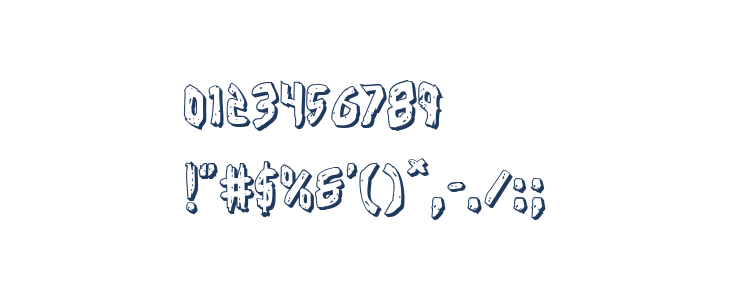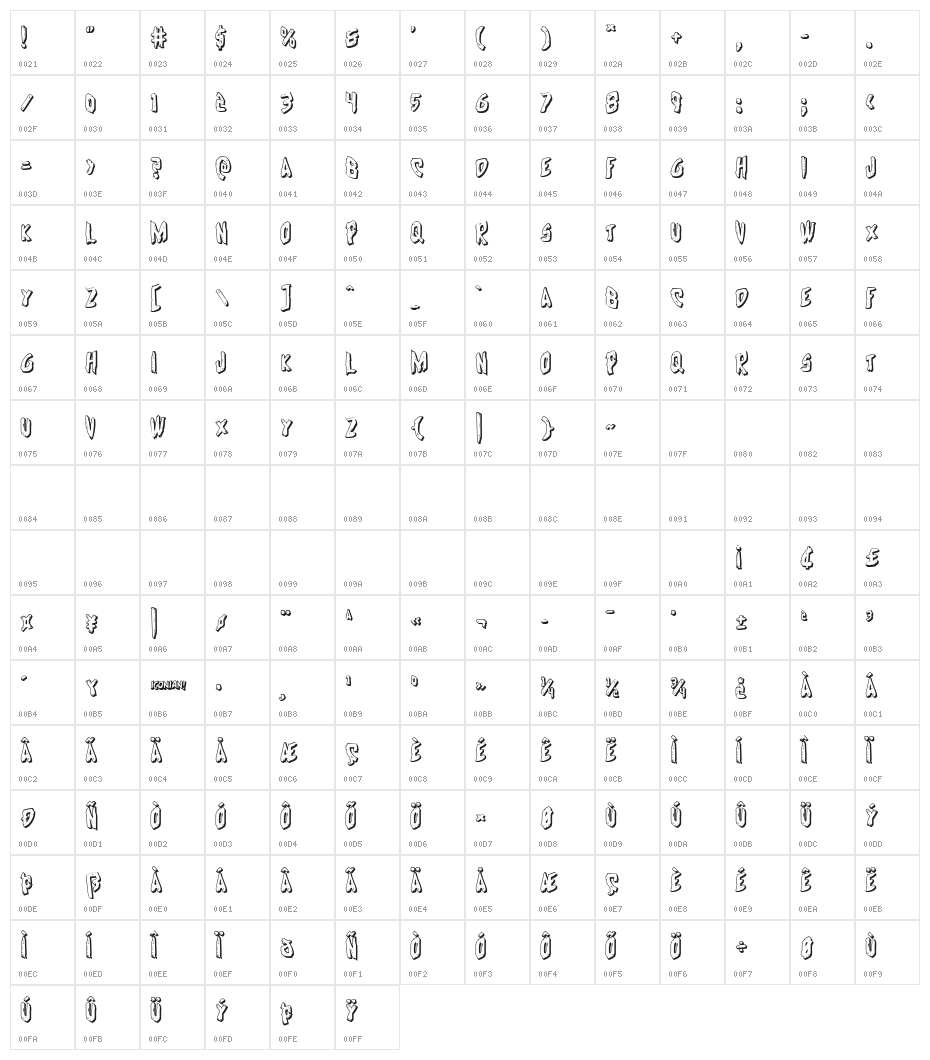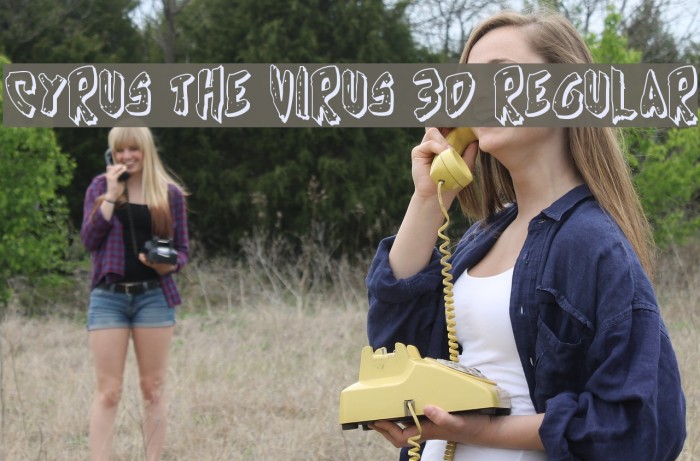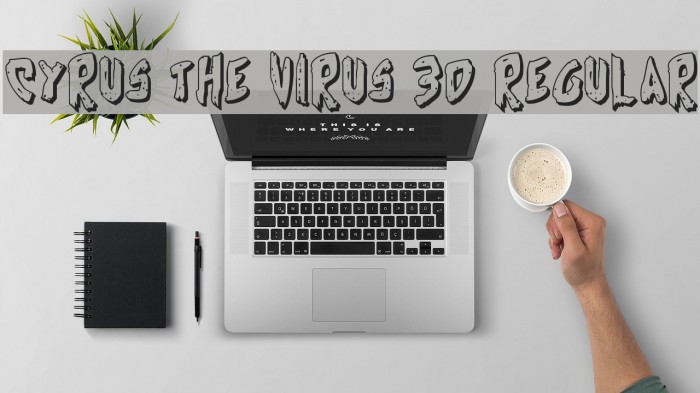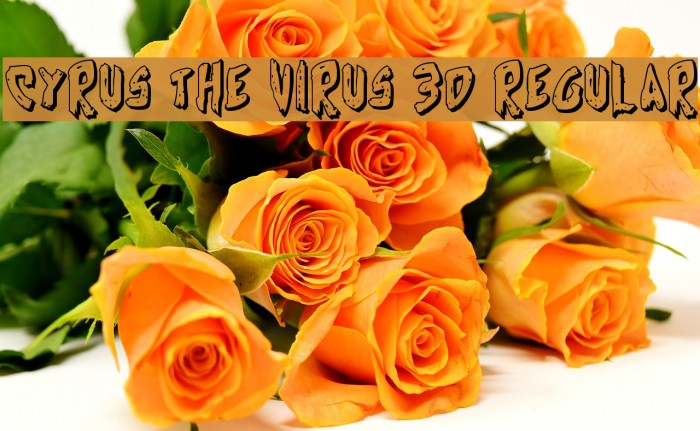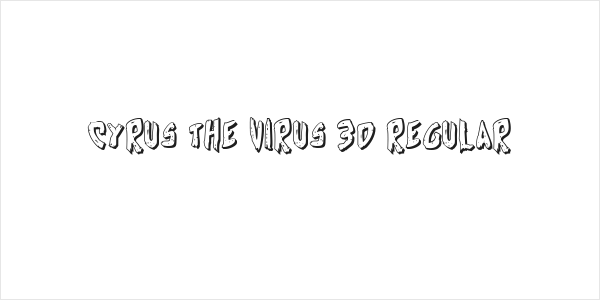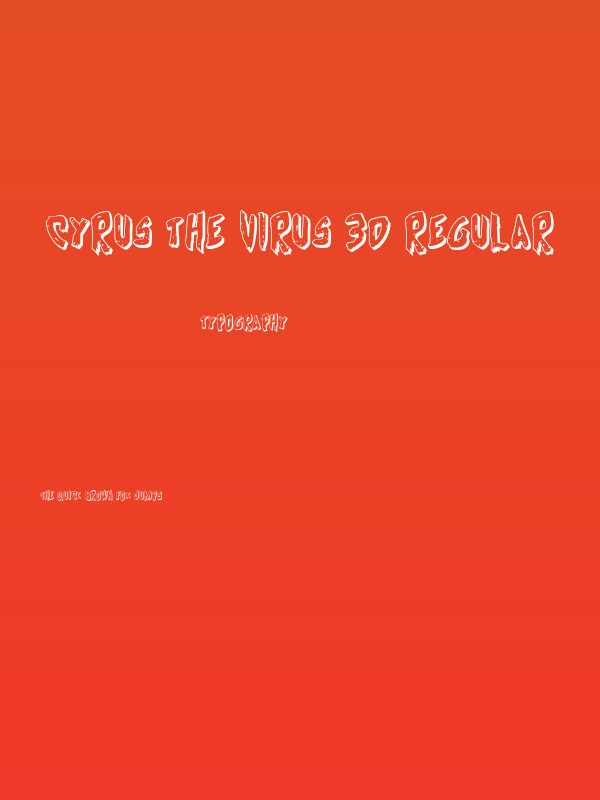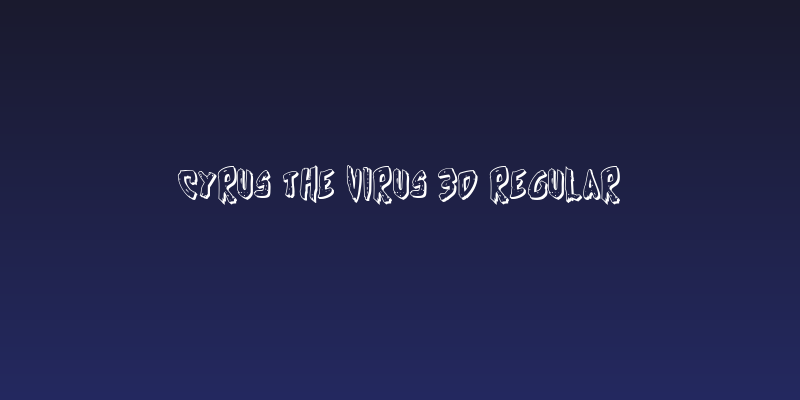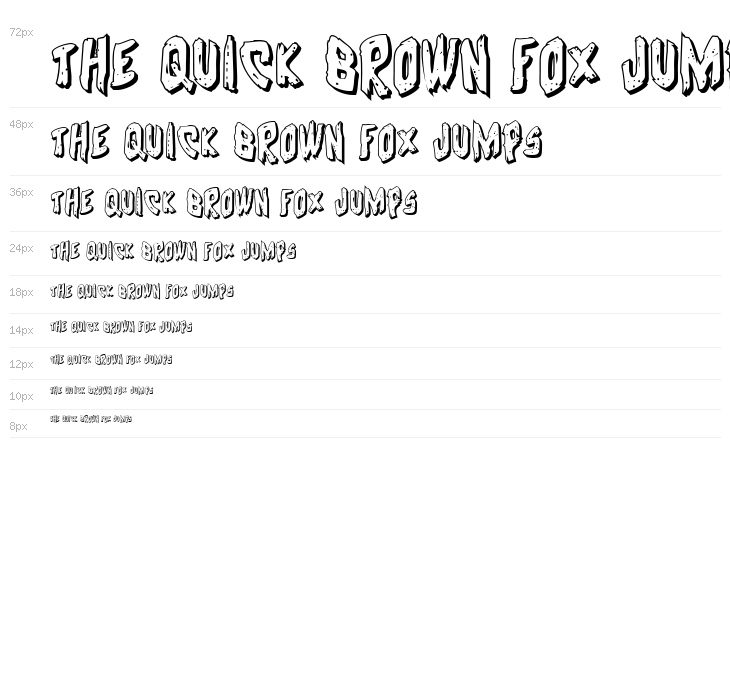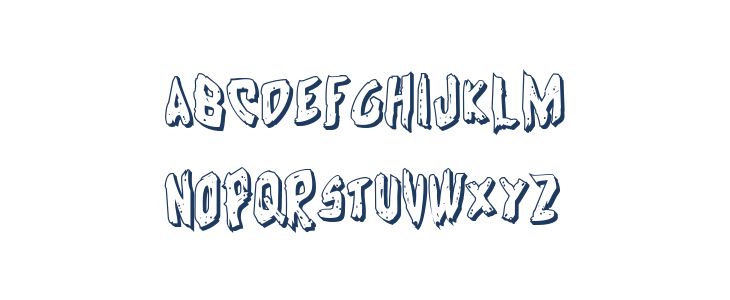
Cyrus the Virus 3D Regular Font
Cyrus the Virus 3D Regular Description
This font features a bold, three-dimensional style with a playful and dynamic appearance. The letters are designed with a shadow effect, giving them a sense of depth and movement. The edges are slightly rough, adding a casual and informal touch. The uppercase and lowercase letters maintain a consistent style, while the numbers and special characters complement the overall design. This font is ideal for projects that require a fun and eye-catching look.
Proposed ProjectsPerfect for comic book titles, children's book covers, playful posters, and eye-catching advertisements.